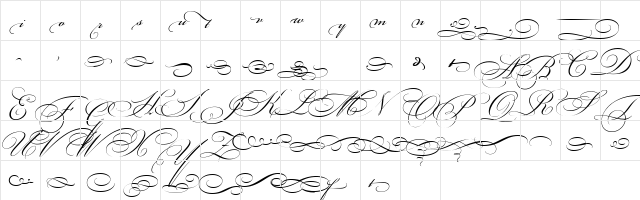
BickhamScriptOrniments2 Regular Font Preview
BickhamScriptOrniments2 Regular
BickhamScriptOrniments2 Regular Font Details
Design Context for BickhamScriptOrniments2 Typeface
BickhamScriptOrniments2 brings a calligraphic fluidity to the page — its connecting strokes and expressive curves give it an unmistakably human quality.
Font Pairing: Combine BickhamScriptOrniments2 with a simple geometric sans for maximum contrast — the tension between flowing curves and clean structure is a classic typographic pairing.
Pro Tip: Pair BickhamScriptOrniments2 with a clean sans-serif for supporting text. The contrast between fluid script and geometric structure creates an elegant typographic hierarchy.